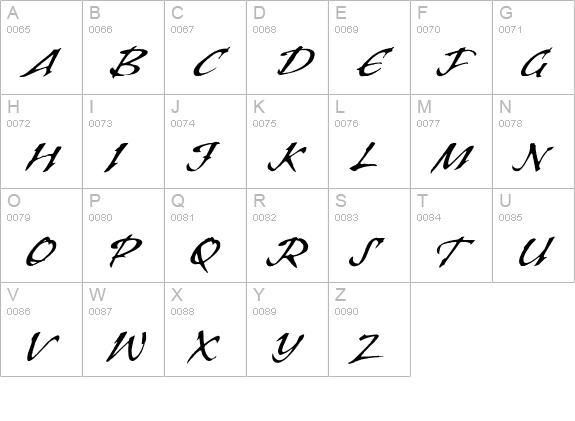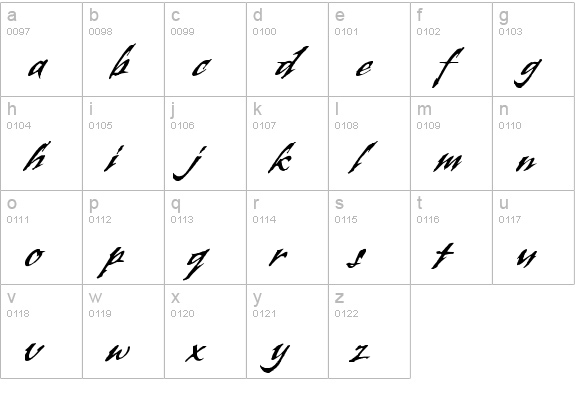
Banshee Font Details
Banshee font is a beautifully crafted typeface that exudes a sense of mystery and elegance with its sleek lines and sharp edges. This versatile font is perfect for a wide range of design projects, from branding to editorial design. Its bold and unique style will make your text stand out and capture the attention of your audience. What sets Banshee font apart is not only its striking appearance but also the fact that it is available for free. Yes, that's right - you can download this stunning font at no cost from FontsMarket.com. Whether you're a professional designer looking to add a new font to your collection or a hobbyist looking to spice up your projects, Banshee font is a fantastic choice. Don't miss out on this amazing opportunity to enhance your designs with this exceptional typeface.